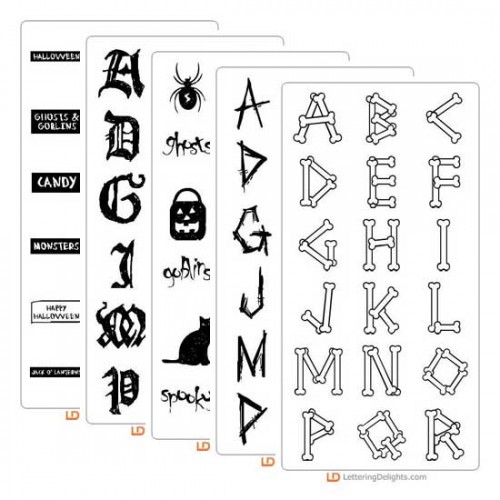
Festive Frights - Bundle
Just in the nick of time, you'll find the Festive Frights Bundle to be the best way to express all your fears on this scariest of holidays! With four fonts and two DoodleBats, you can do a lot of expressing! {And actually with very little fear, since it's a such a screaming great deal!}